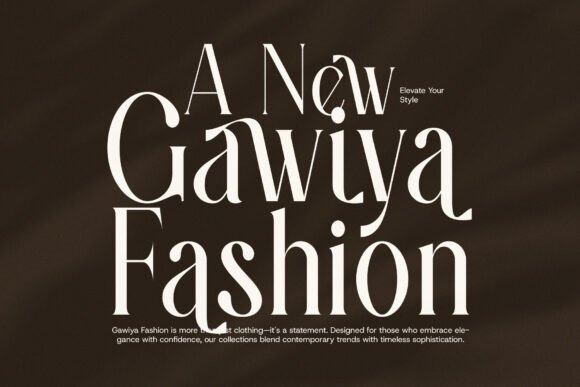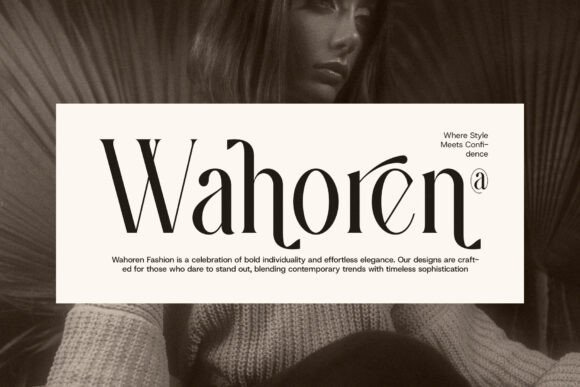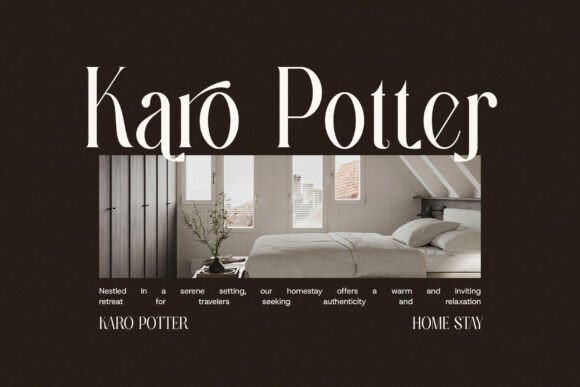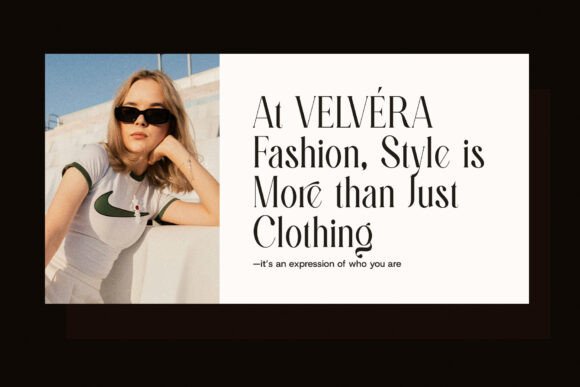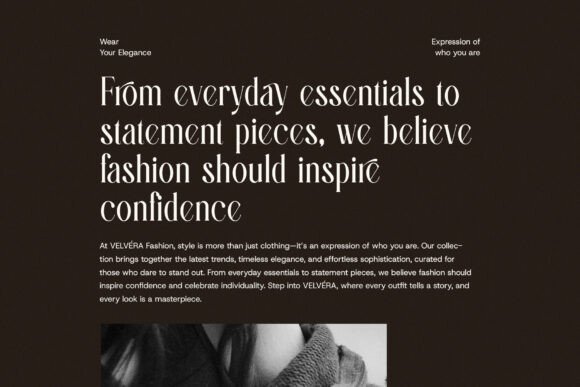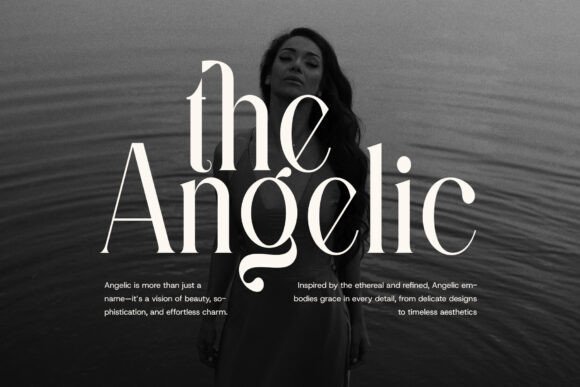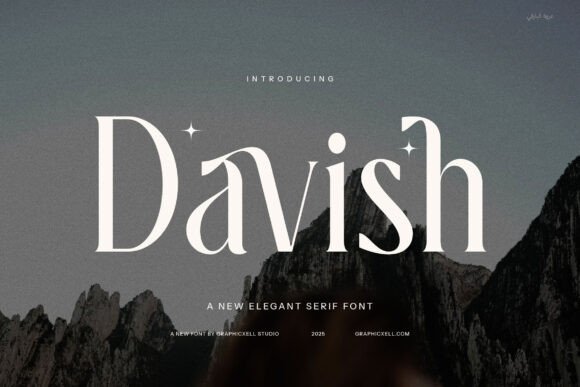
Davish Elegant Serif Font: Elevate Your Designs with Timeless Sophistication
In the world of typography, a well-crafted font can elevate a design from ordinary to extraordinary. Introducing **Davish Elegant Serif Font**, a refined and sophisticated typeface that merges modern aesthetics with timeless charm. Designed for those who appreciate elegance in every detail, Davish is the perfect choice for creative projects that demand a touch of luxury and sophistication.
The Essence of Davish: Elegance and Sophistication
Davish Elegant Serif Font features graceful curves, balanced proportions, and a distinctive presence that enhances any creative project. Its sleek lines and subtle sophistication make it an ideal choice for luxury branding, high-end packaging, editorial layouts, and stylish website headers. The exquisite letterforms, enhanced by delicate serifs and elegant ligatures, create a sense of exclusivity and professionalism, perfect for:
- Fashion labels seeking to make a statement
- Upscale boutiques looking for a premium feel
- Premium food branding that demands sophistication
- Artistic advertisements that require a touch of elegance
Key Features of Davish Elegant Serif Font
Beyond its striking visual appeal, Davish ensures excellent readability and versatility. The seamless contrast between thick and thin strokes adds a touch of sophistication, allowing it to shine in both digital and print applications. Whether used in bold headlines or refined body text, Davish adapts effortlessly to various design needs.
The key features of Davish Elegant Serif Font include:
- Delicate serifs that add a touch of elegance
- Elegant ligatures that enhance the overall aesthetic
- Excellent readability in various sizes and applications
- Versatility for use in digital and print media
Applications of Davish Elegant Serif Font
Davish Elegant Serif Font is a versatile typeface that can be used in a variety of applications, including:
- Luxury branding: Create a lasting impression with Davish’s sophisticated and elegant letterforms
- High-end packaging: Elevate your product packaging with a touch of luxury and sophistication
- Editorial layouts: Add a touch of elegance to your editorial designs, such as magazines and newspapers
- Stylish website headers: Create a lasting impression with Davish’s sleek and sophisticated letterforms
Why Choose Davish Elegant Serif Font?
In a world where typography plays a crucial role in design, Davish Elegant Serif Font stands out as a refined and sophisticated choice. Its unique blend of modern aesthetics and timeless charm makes it an excellent choice for designers and crafters seeking to elevate their designs. With Davish, you can:
- Create a lasting impression with elegant and sophisticated letterforms
- Add a touch of luxury and sophistication to your designs
- Enhance your brand’s image with a premium and exclusive feel
In conclusion, Davish Elegant Serif Font is a refined and sophisticated typeface that merges modern aesthetics with timeless charm. Its elegant letterforms, delicate serifs, and excellent readability make it an excellent choice for luxury branding, high-end packaging, editorial layouts, and stylish website headers. Whether you’re a designer or crafter, Davish is the perfect choice for those seeking to elevate their designs with a touch of sophistication and elegance.